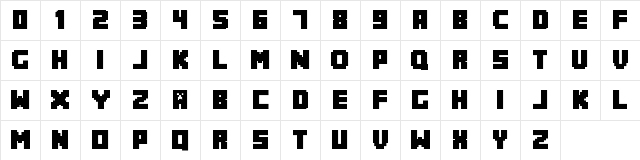
Complete Minecrafter Regular glyph index. Displaying only characters natively supported by Minecrafter Regular font.
Minecrafter is a composed and adaptable typeface that performs quietly and consistently across a wide range of design contexts.